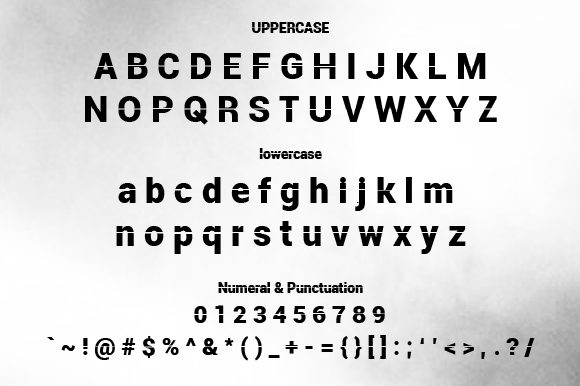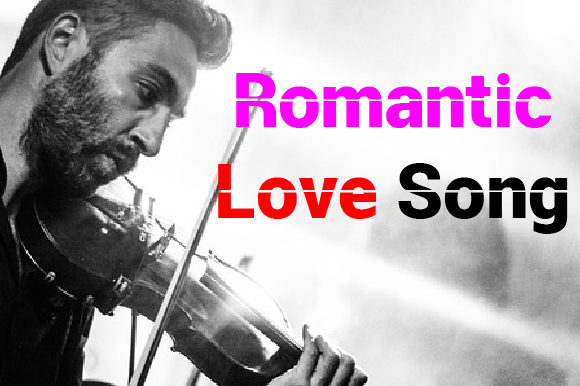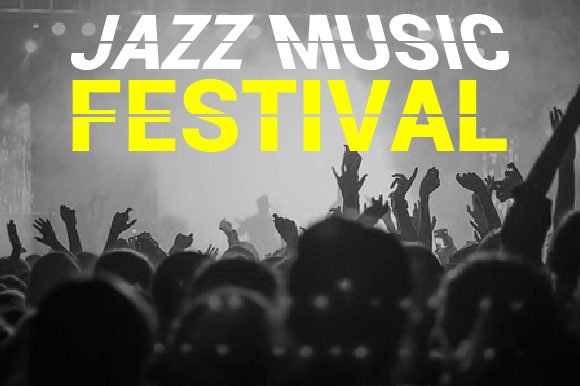
Introduction to Lostink Font Font
Fonts play a crucial role in design, and the Lostink Font font is a typeface that brings both character and versatility to any project. Whether you’re working on a branding project, a website, or a print design, the Lostink Font font offers a unique style that can elevate your work.
The Lostink is a charming sans serif.
It comes 3 unique styles which gives you the opportunity to create multiple designs with just this one download .
Key Features of Lostink Font Font
Why Choose Lostink Font Font?
The Lostink Font font is more than just a typeface – it’s a design tool that helps you communicate your message with style and clarity. Its unique character set and versatile design make it suitable for a wide range of applications, from elegant invitations to bold headlines.
With its carefully crafted letterforms and balanced proportions, the Lostink Font font ensures readability and visual appeal across all mediums.
What makes Lostink Font font special?
The Lostink Font font stands out with its unique design, exceptional readability, and versatility across various design applications.